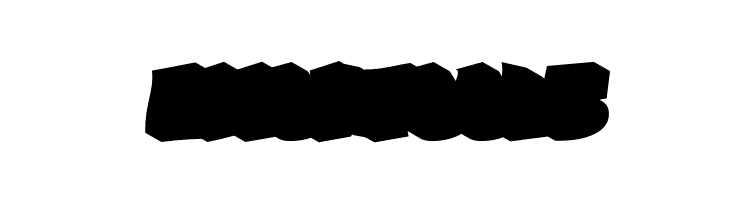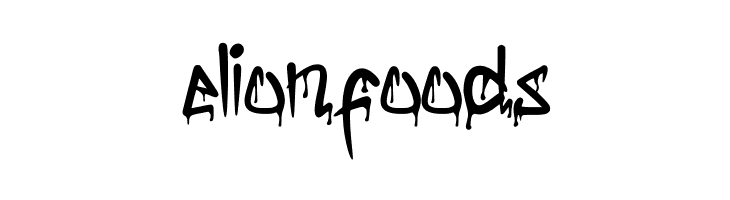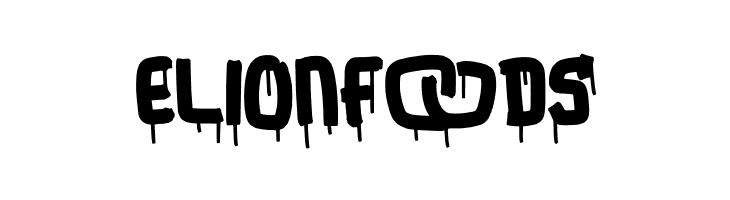
( Fonts by Edy Wiyono )
A bold, graffiti-inspired font with dynamic, flowing lines and an urban street art aesthetic.
( Fonts by Nirmana Visual )
A bold, graffiti-style font with shadowed, jagged letters.
( Fonts by Satire Artwork )
An edgy, graffiti-inspired font with a dripping effect.
( Fonts by Nirmana Visual )
A bold, graffiti-inspired font with shadowed, three-dimensional characters.
( Fonts by Din Studio )
A bold, graffiti-inspired font with a dripping effect for a dynamic, urban look.